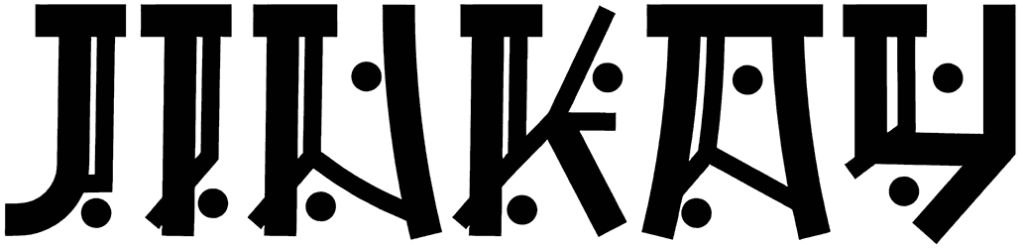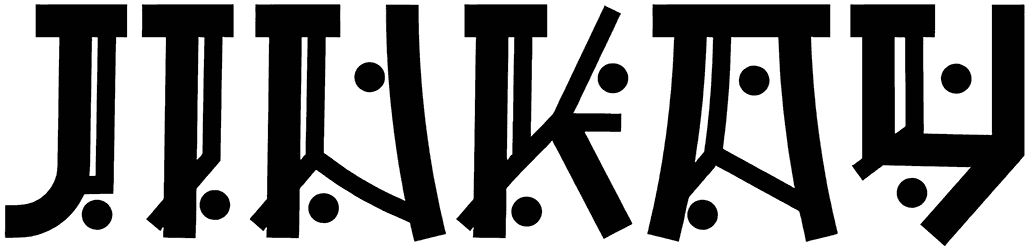
Jinkay Font
Since it’s an Asian font like the one you are going to use for a unique design, your project will be mesmerizing. Jinkay has a striking, bold visual that will make your words a bit unclear. This weird font has no support for numbers and most punctuation marks, but with its characters, it will be a cool selection to amp up your project.